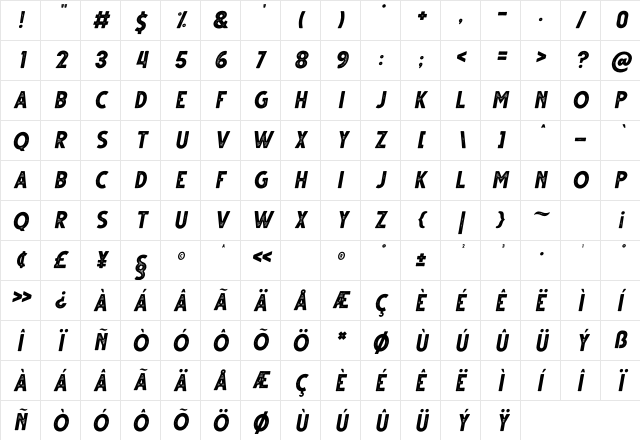
Complete Gutter Rust Italic glyph index. Displaying only characters natively supported by Gutter Rust Italic font.
Gutter Rust is a composed and adaptable typeface that performs quietly and consistently across a wide range of design contexts. The slanted form adds forward momentum and visual energy.
Pro Tip: Use Gutter Rust for emphasis, pull quotes, and subheadings where its slanted energy can add rhythm to the layout.